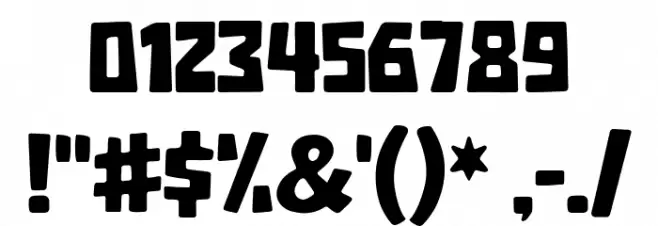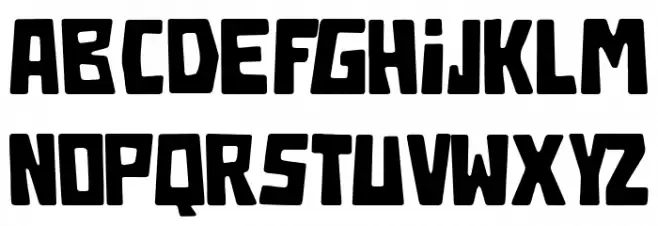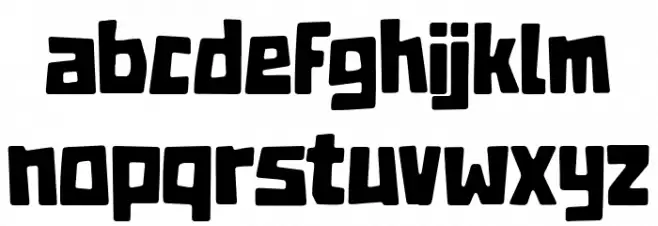
Arcade Quest Font
Arcade Quest Description
A bold, playful display typeface with irregular, chunky letterforms and a hand-drawn, retro arcade-inspired appearance. The characters have uneven edges and varying widths, giving a dynamic, energetic feel.
Bold, playful display font with a retro arcade vibe.
- Proposed Projects: Video game titles, posters, children’s books, event flyers, branding for entertainment or tech.
- Overall Style: Decorative, Retro, Playful